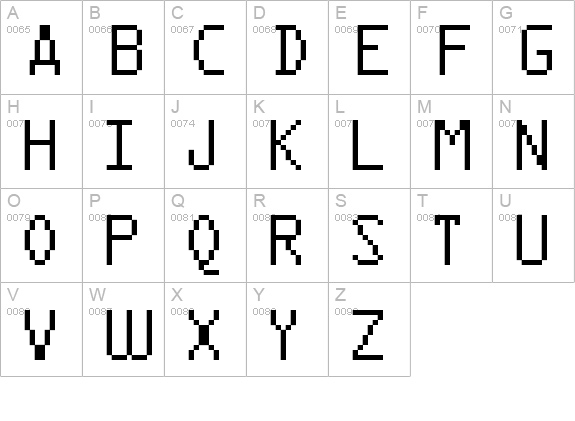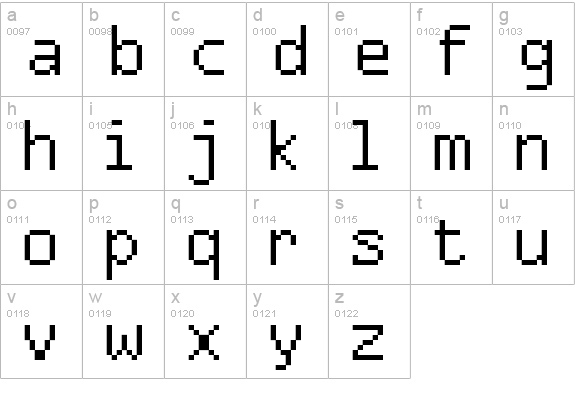
FFF Agent Condensed is a distinctive, condensed-width variant in the FFF typeface family \xE2\x80\x94 well suited to design and typography projects.
FFF Agent Condensed font is a sleek and stylish typeface that exudes professionalism and modernity. With its condensed design, this font is perfect for creating eye-catching headings, titles, and other design elements that demand attention. The clean lines and sharp edges of FFF Agent Condensed add a touch of sophistication to any project, making it a versatile choice for both print and digital designs. What sets FFF Agent Condensed font apart is that it is freely available to download at FontsMarket.com. This means that you can easily access this high-quality font without any cost, making it a valuable addition to your font library. Whether you're working on a branding project, website design, or any other creative endeavor, FFF Agent Condensed font will help you achieve a professional and polished look. Download it today and elevate your designs with this striking typeface.